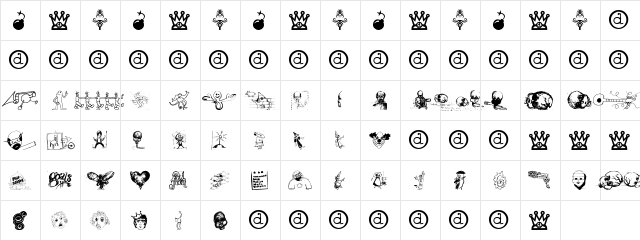
DisturbedBats Yo!
Design Context for DisturbedBats Typeface
DisturbedBats is a composed and adaptable typeface that performs quietly and consistently across a wide range of design contexts.